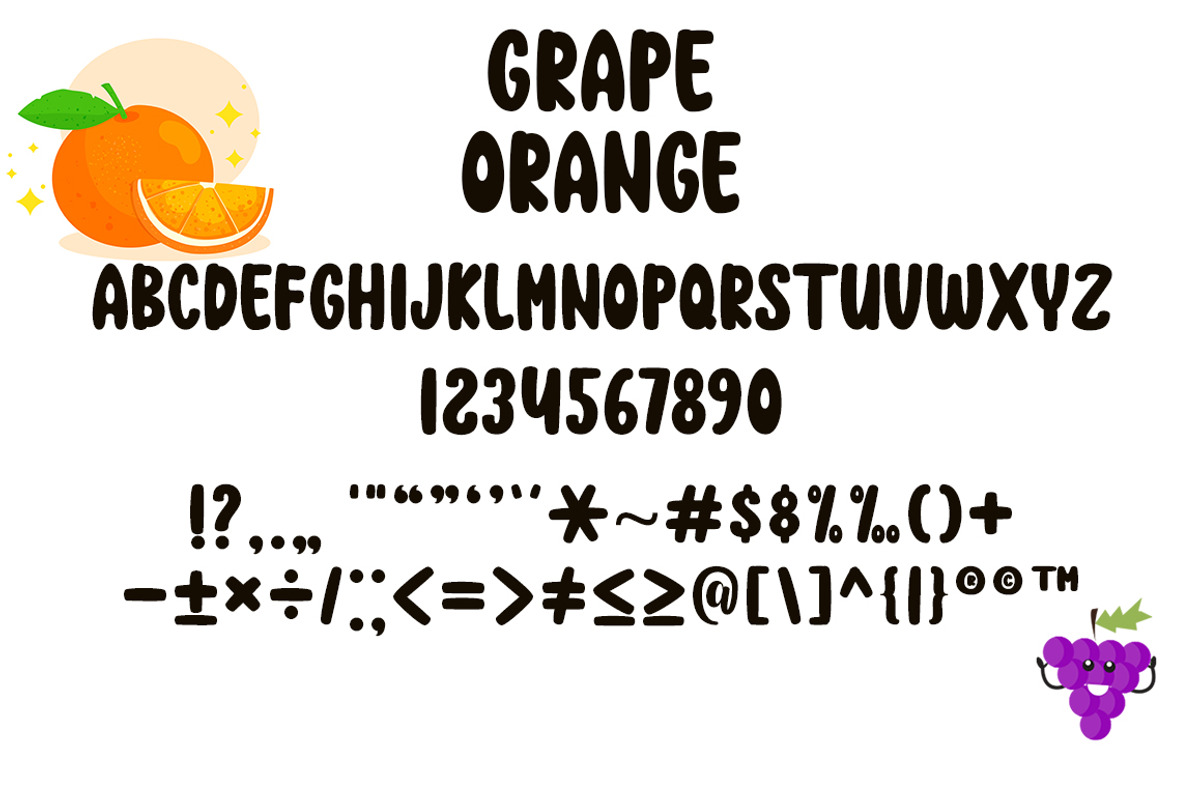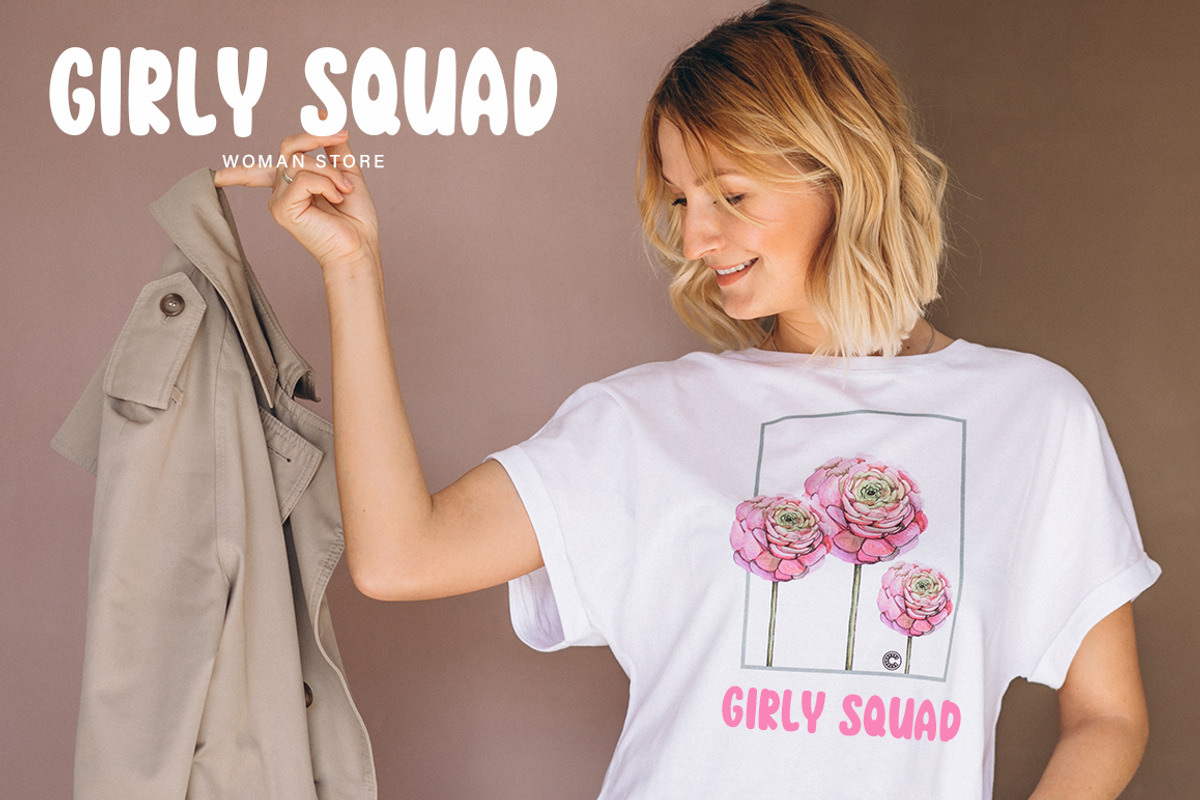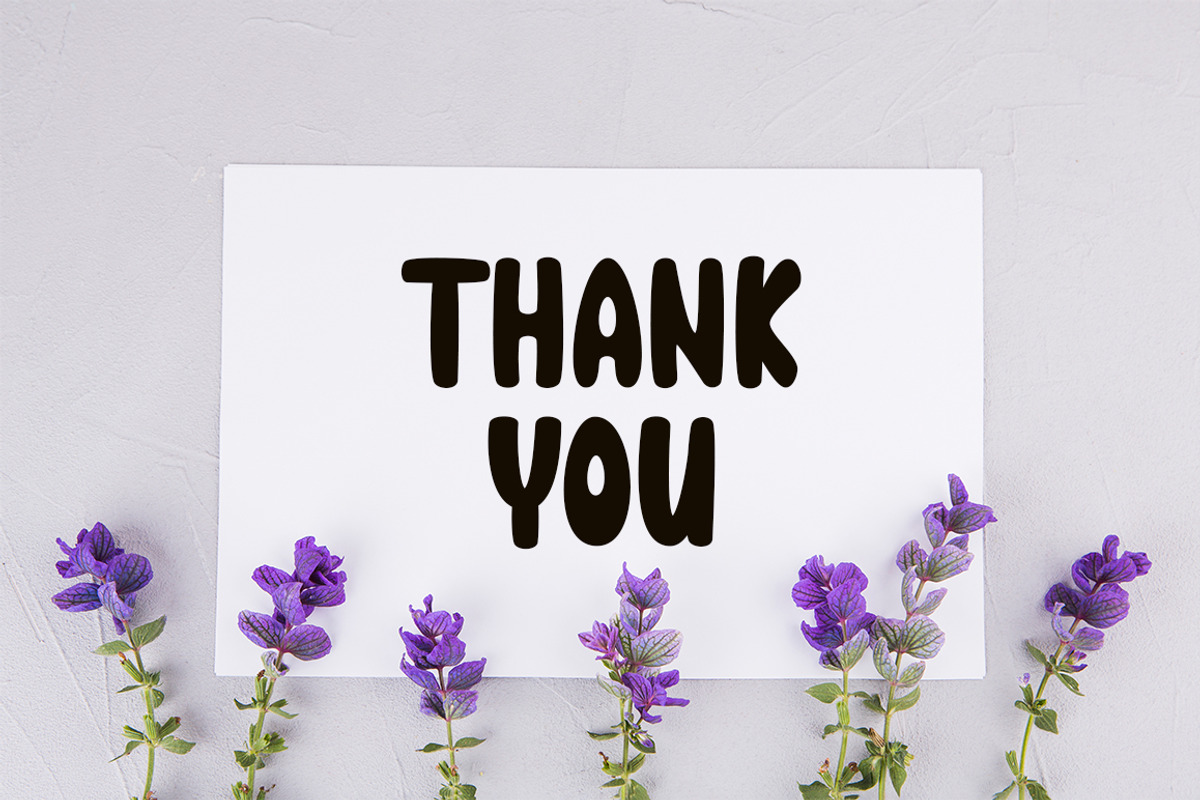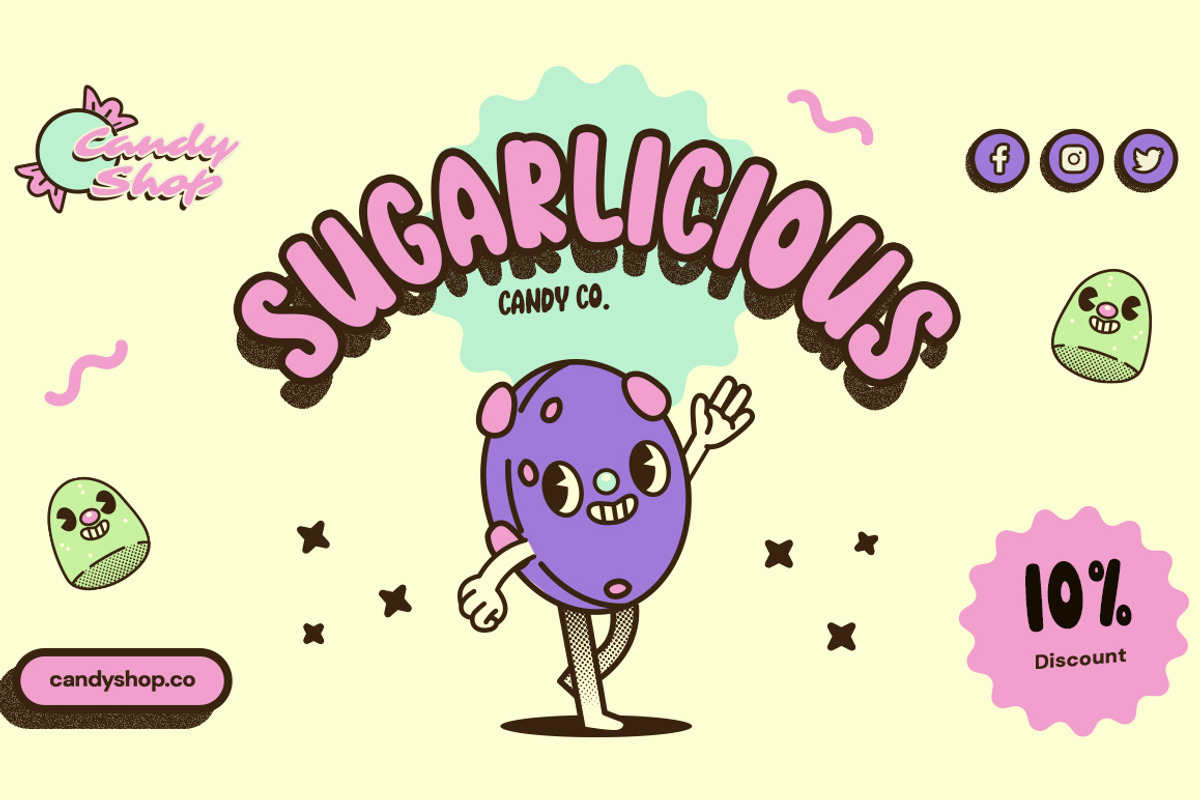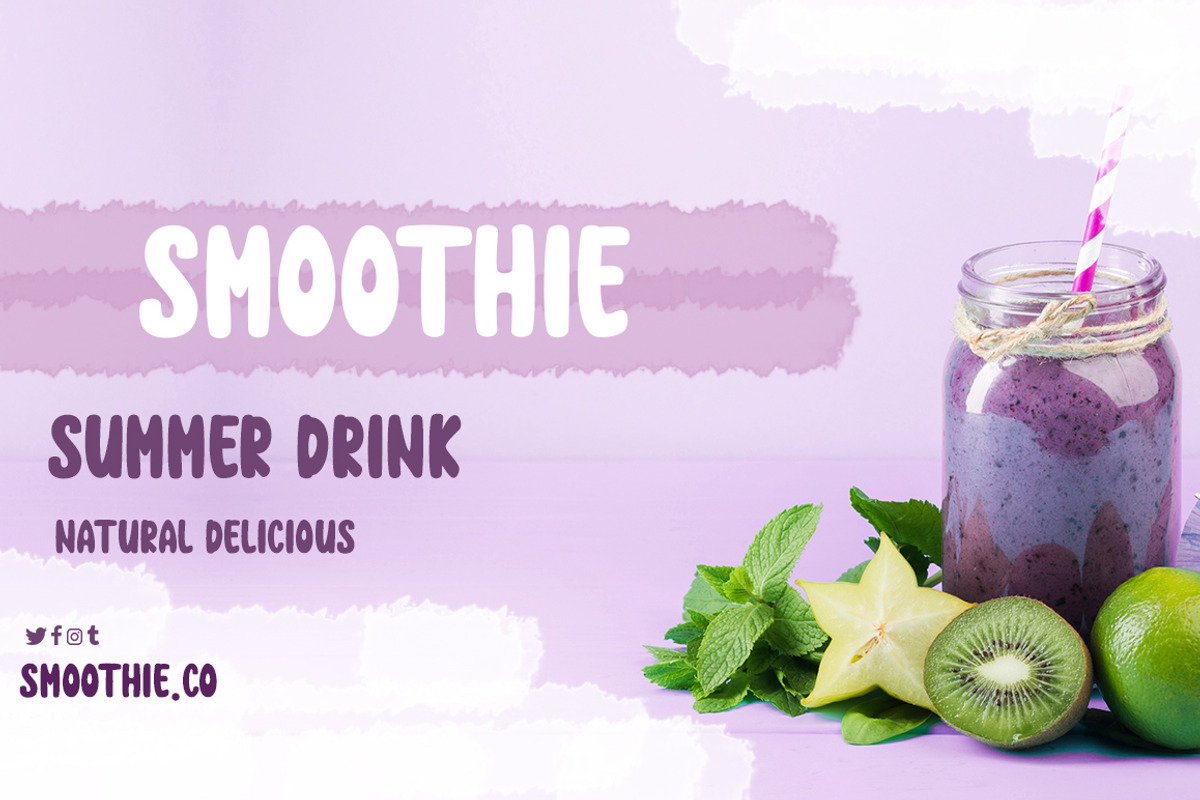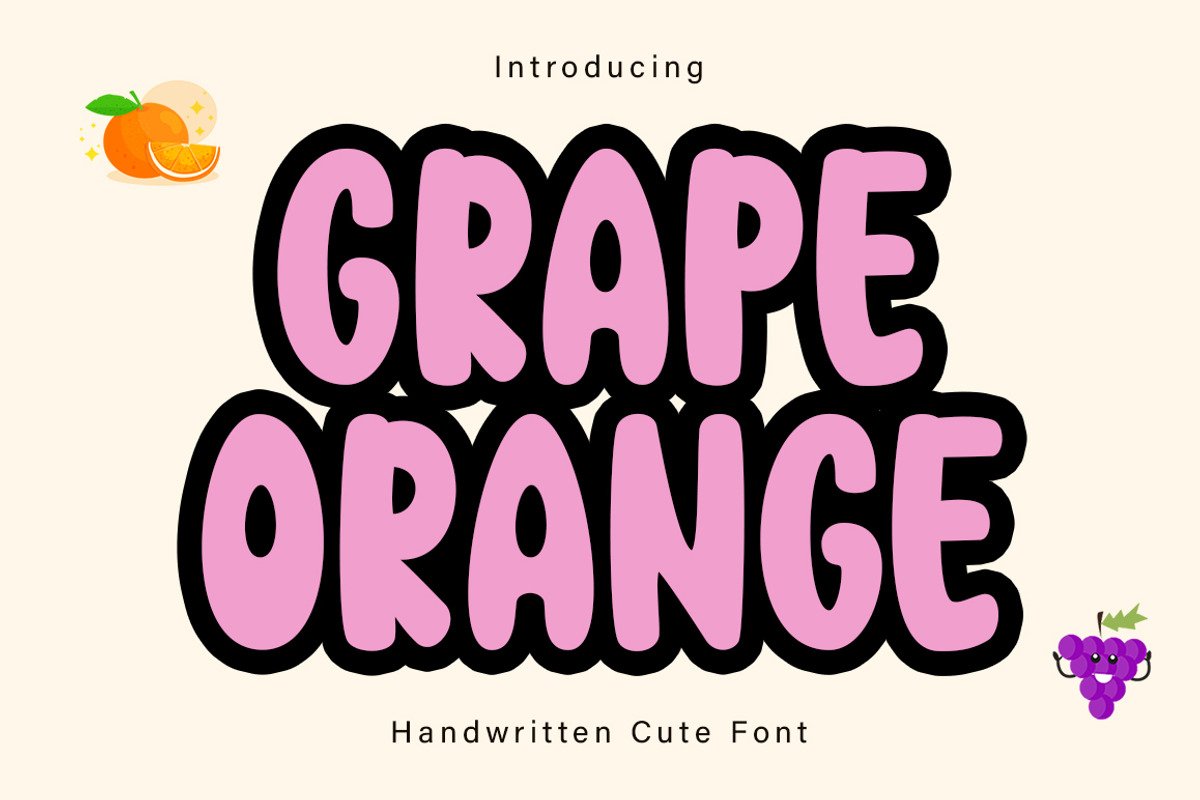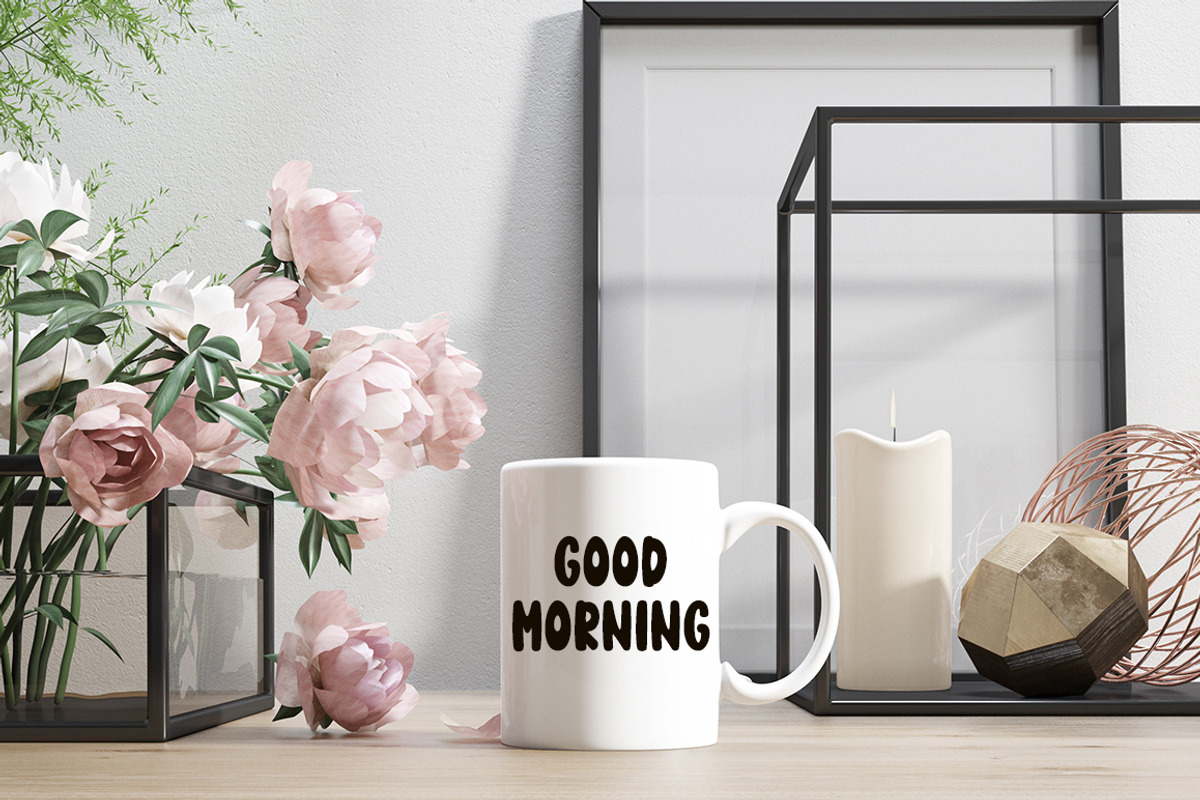
Grape Orange
Grape Orange is a cute and charming display font. Whimsical and a bit quirky, this font will brighten up each of your designs. Add it confidently to your projects, and you will love the results.